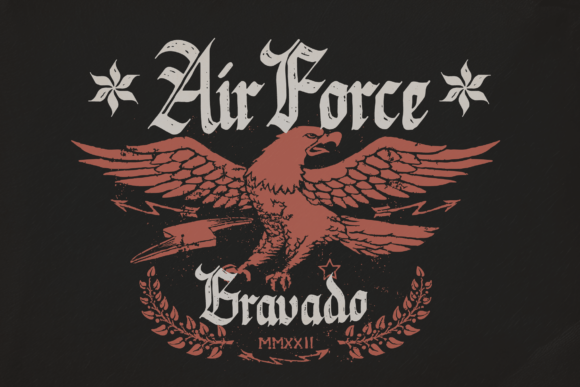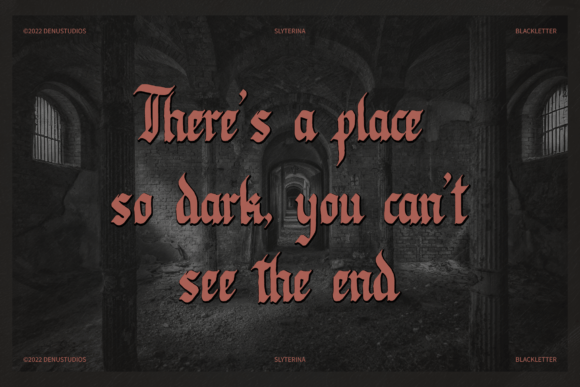
Sylterina Font
Slyterina is a bold blackletter typeface with gothic flair and vintage elegance. With over 250 glyphs and both regular and stamped styles, it’s perfect for tattoo designs, heavy metal artwork, posters, book covers, and branding that demands attitude. Bring medieval drama into modern design with this sharp and stylish typeface.